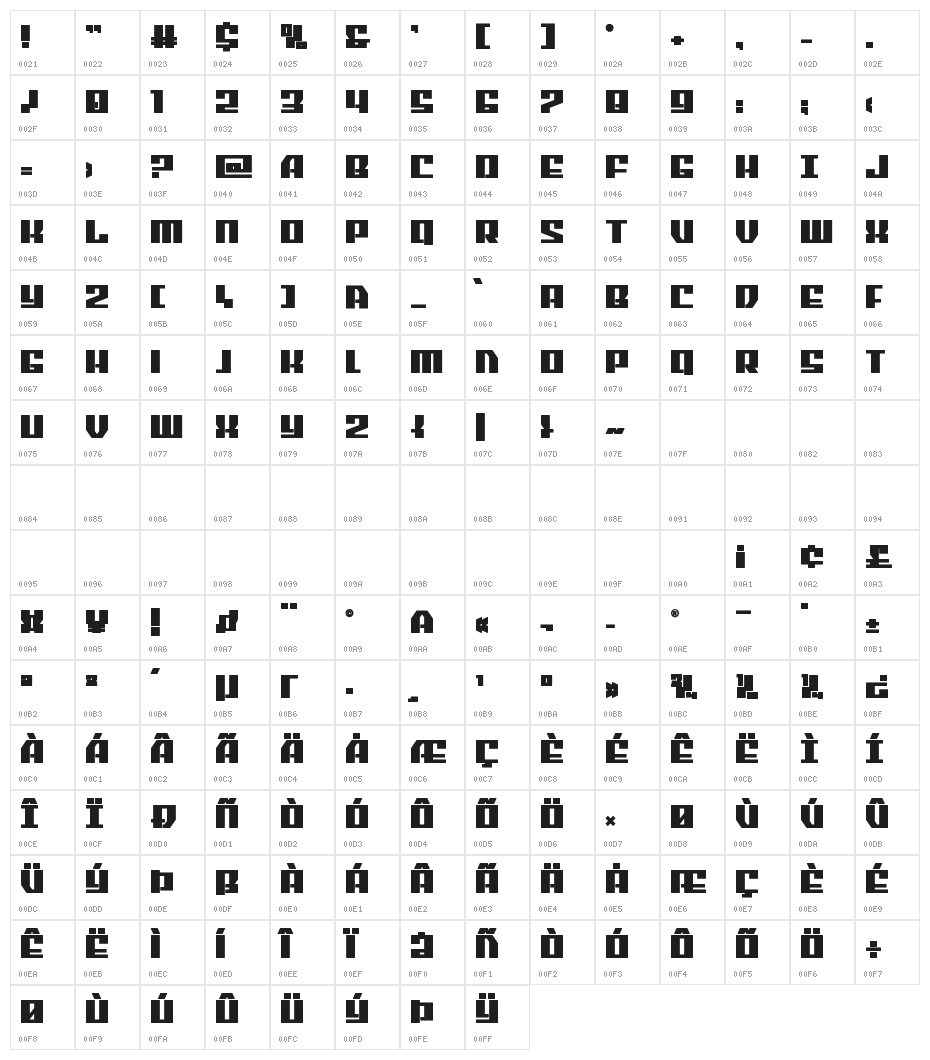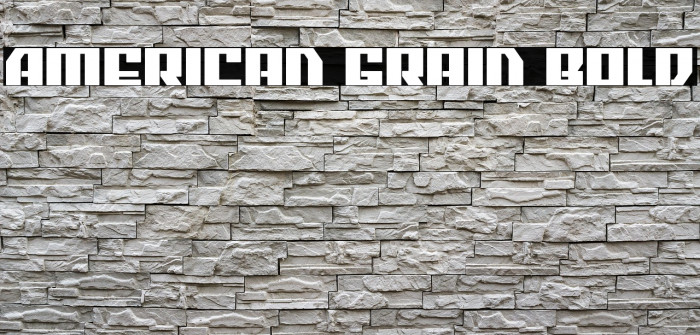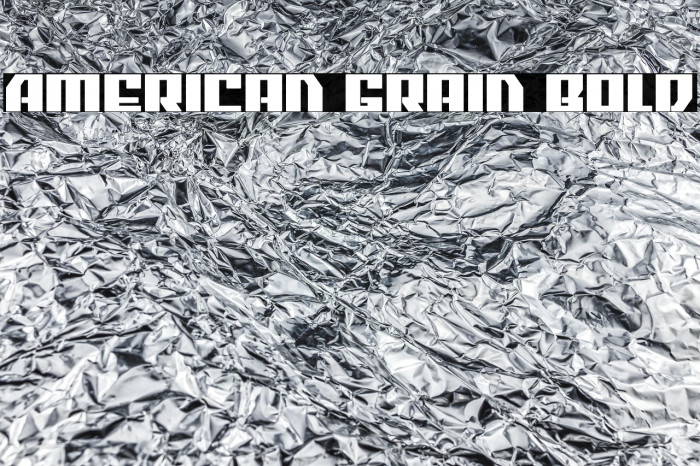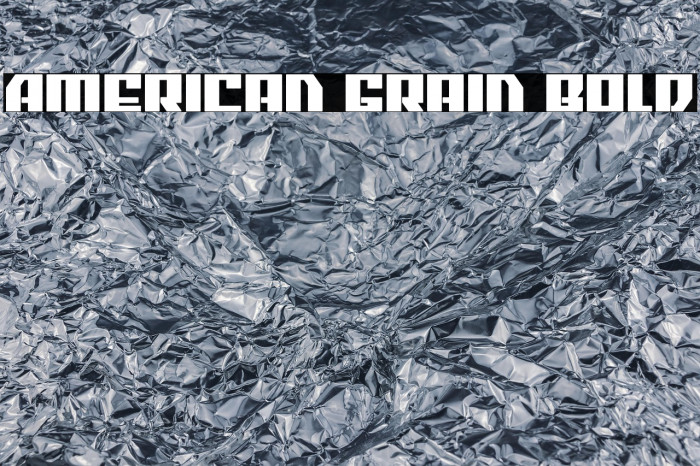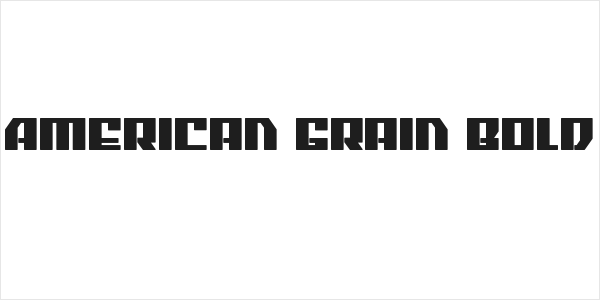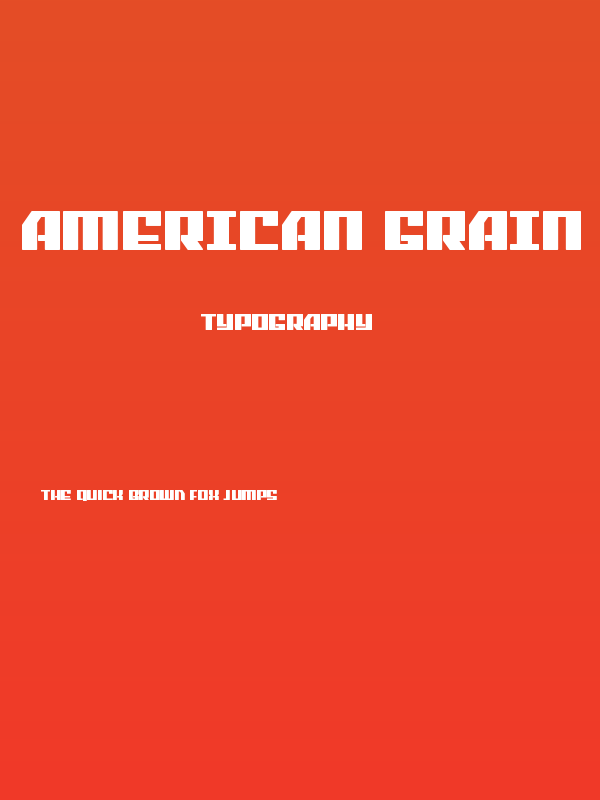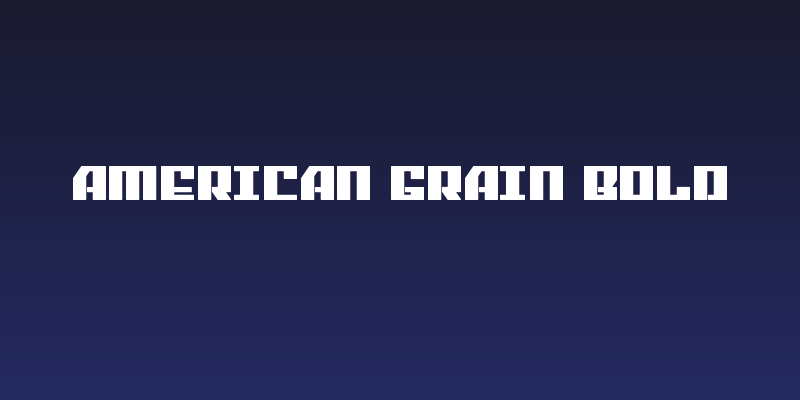
American Grain Bold Font
American Grain Bold Description
This font features a bold, geometric design with strong, angular lines and a blocky appearance. Each character is crafted with precision, offering a modern and industrial feel. The uppercase letters are particularly striking, with their sharp edges and uniform height, creating a sense of strength and stability. The lowercase letters maintain the same boldness, ensuring consistency throughout the typeface. Numbers and special characters are equally robust, making them suitable for a variety of applications. The overall style is both contemporary and versatile, ideal for making a bold statement.